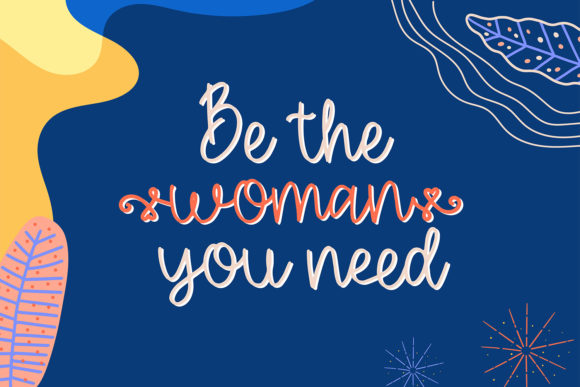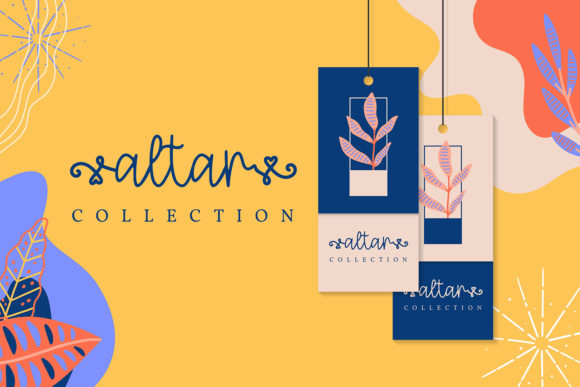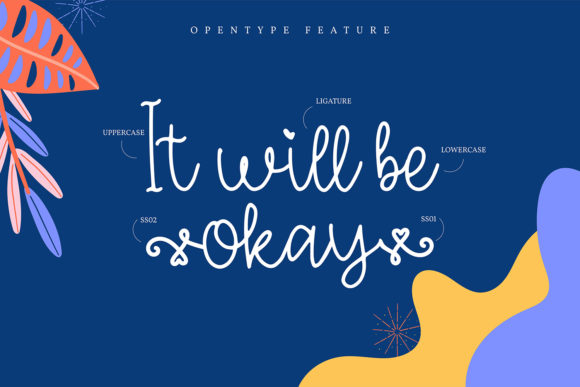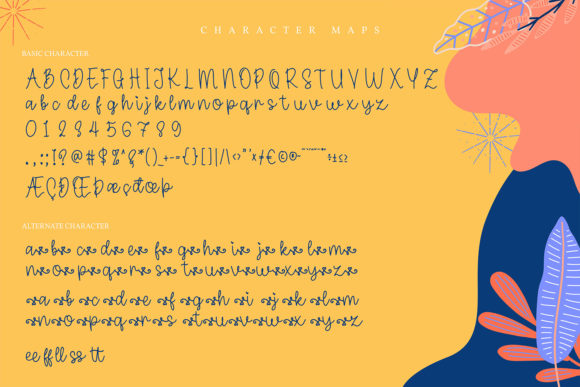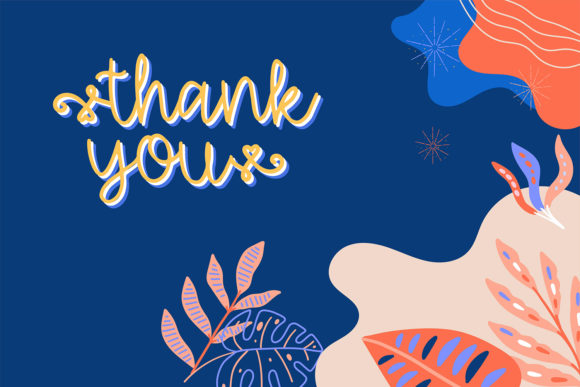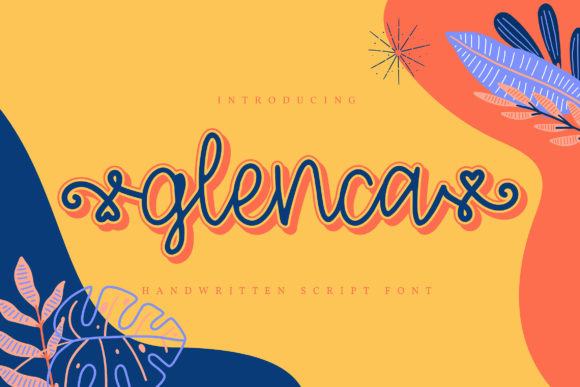
Discover the Elegance of Glenca Font: A Stylish and Delicate Addition to Your Designs
Are you on the hunt for a font that exudes elegance, sophistication, and a touch of delicacy? Look no further than Glenca Font, a stylish and delicate typeface that’s sure to elevate your designs to new heights. With its clean, thin, and smooth vibe, Glenca is the perfect addition to any project that requires a dash of refinement and poise.
What Makes Glenca Font So Special?
Glenca Font boasts a range of features that make it an attractive choice for designers and crafters alike. Here are just a few reasons why Glenca is sure to become your go-to font:
- Clean and Thin Design: Glenca’s sleek and slender lines make it perfect for designs that require a light touch. Whether you’re working on a logo, a heading, or a paragraph of text, Glenca’s clean design ensures that your message is conveyed with clarity and precision.
- Smooth and Elegant Vibe: Glenca’s smooth curves and flowing lines give it an undeniably elegant feel. This font is perfect for designs that require a touch of sophistication, such as luxury brands, high-end products, or elegant wedding invitations.
- PUA Encoded: Glenca Font is PUA (Private Use Area) encoded, which means that you can access a wide range of beautiful glyphs and swashes with ease. This feature allows you to add an extra layer of creativity and personality to your designs, taking them from ordinary to extraordinary.
How to Use Glenca Font in Your Designs
Glenca Font is incredibly versatile and can be used in a wide range of design applications. Here are a few ideas to get you started:
- Logos and Branding: Glenca’s clean and elegant design makes it perfect for logos and branding materials. Use it to create a sophisticated and memorable brand identity that will leave a lasting impression on your customers.
- Wedding Invitations and Stationery: Glenca’s elegant vibe makes it a popular choice for wedding invitations, stationery, and other special occasion designs. Add a touch of sophistication and romance to your designs with Glenca.
- Packaging and Product Design: Glenca’s clean and thin design makes it perfect for packaging and product design. Use it to create eye-catching labels, packaging, and marketing materials that will help your products stand out on store shelves.
Tips and Tricks for Getting the Most Out of Glenca Font
Here are a few tips and tricks to help you get the most out of Glenca Font:
- Experiment with Different Sizes: Glenca Font looks great in a range of sizes, from small and delicate to large and bold. Experiment with different sizes to find the perfect fit for your design.
- Pair it with Other Fonts: Glenca Font pairs beautifully with other fonts, especially bold and sans-serif fonts. Experiment with different font combinations to create a unique and eye-catching design.
- Use the Swashes and Glyphs: Don’t forget to take advantage of Glenca’s PUA encoding, which allows you to access a wide range of beautiful swashes and glyphs. Use these to add an extra layer of creativity and personality to your designs.
In conclusion, Glenca Font is a stylish and delicate typeface that’s sure to become a favorite among designers and crafters. With its clean, thin, and smooth vibe, Glenca is perfect for designs that require a touch of elegance and sophistication. Whether you’re working on a logo, a wedding invitation, or a product design, Glenca Font is sure to elevate your designs to new heights. So why wait? Download Glenca Font today and discover the elegance and versatility it has to offer!